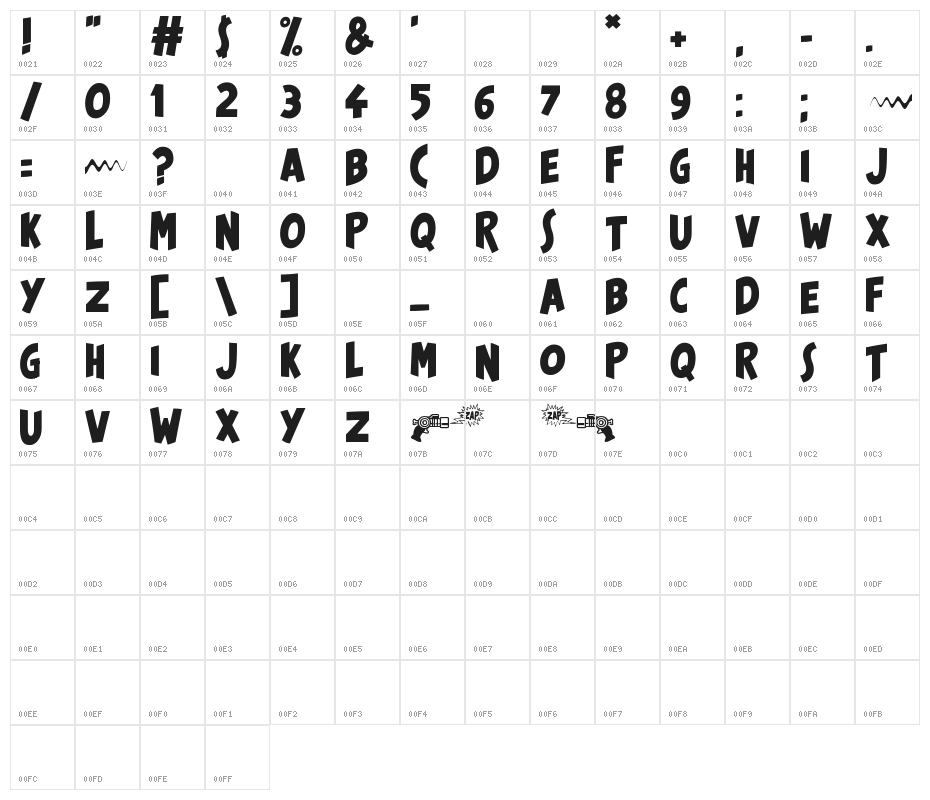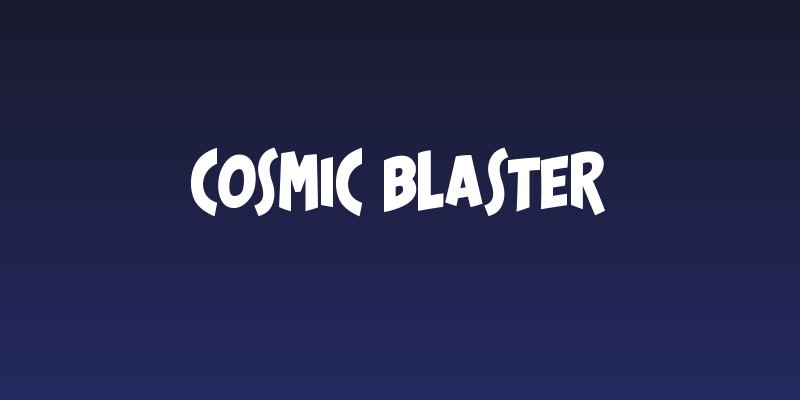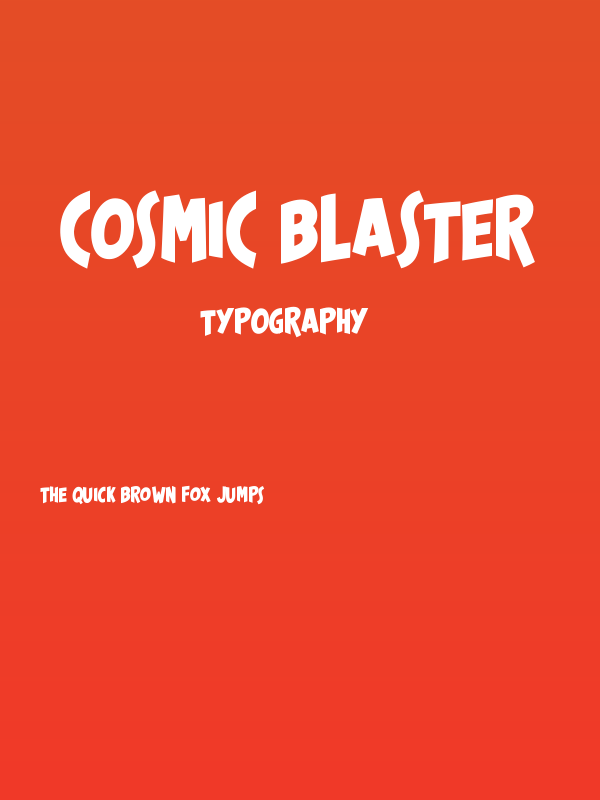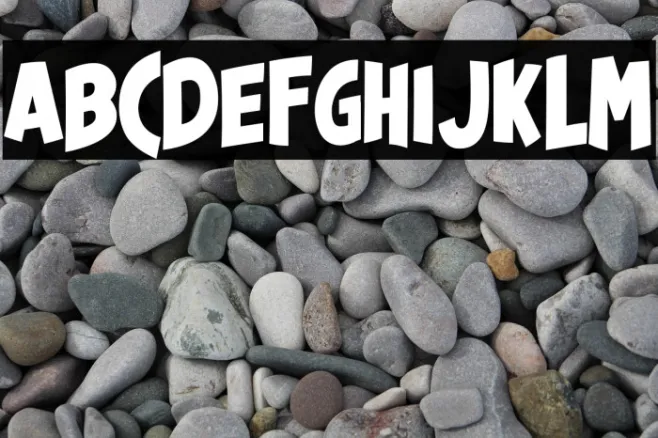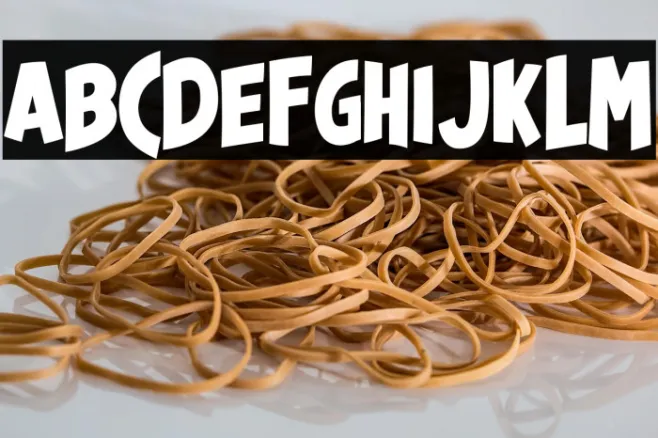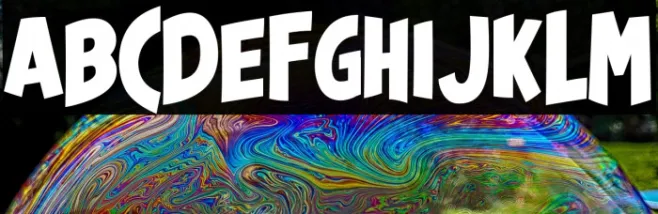
Cosmic Blaster Font
Cosmic Blaster Description
This font features bold, dynamic characters with a playful and energetic style. The letters are slightly slanted, giving a sense of movement and excitement. The strokes are thick and consistent, providing a strong visual impact. The characters have a slightly irregular shape, adding a whimsical touch. The numbers and special characters follow the same bold and lively design, making the font suitable for attention-grabbing headlines and creative projects.
| Overall Style | Playful, Energetic, Whimsical |
| Use Case | Headlines, Posters, Branding |
| Proposed Projects | Ideal for comic books, children's books, posters, and playful branding. |